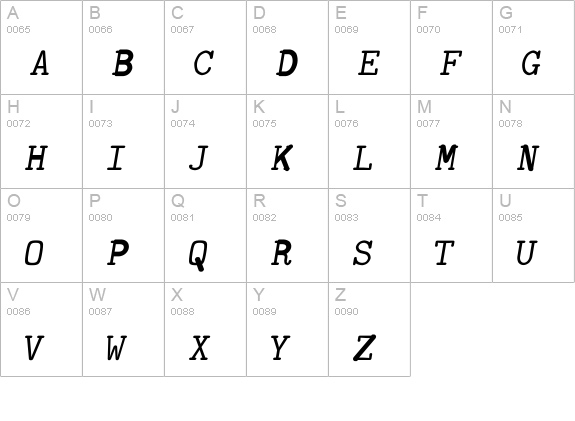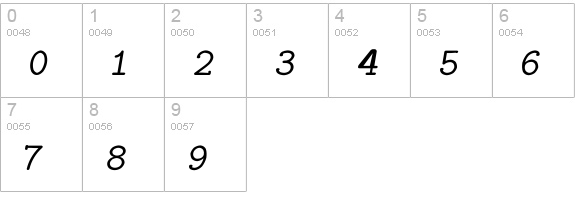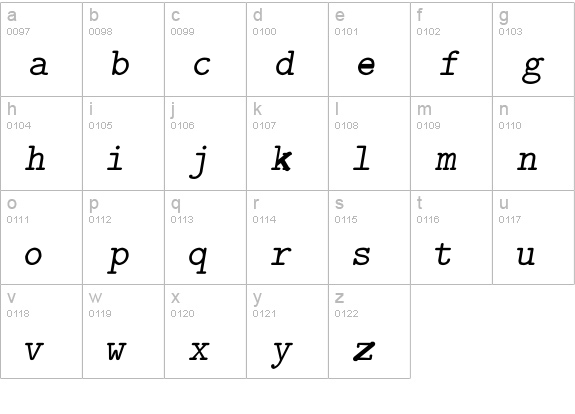
CM_SlantedTypewriter Regular Font Details
CM_SlantedTypewriter Regular is the standard, neutral variant in the CM_SlantedTypewriter typeface family \xE2\x80\x94 well suited to general body text, paragraphs, and standard typographic work.
CM_SlantedTypewriter Regular is a sleek and modern font that brings a unique touch to your projects. With its slanted design, this font exudes a sense of contemporary style and sophistication. The clean lines and balanced letterforms make it perfect for a wide range of design applications. What sets CM_SlantedTypewriter Regular apart is not only its striking appearance but also the fact that it is available for free download at FontsMarket.com. This means that you can easily access this high-quality font without any cost, making it a valuable addition to your font library. Whether you're working on branding, web design, posters, or any other creative project, CM_SlantedTypewriter Regular is sure to make a statement. Its versatility and modern aesthetic make it a go-to choice for designers looking to elevate their work. Download this font for free today and see how it can enhance your projects!